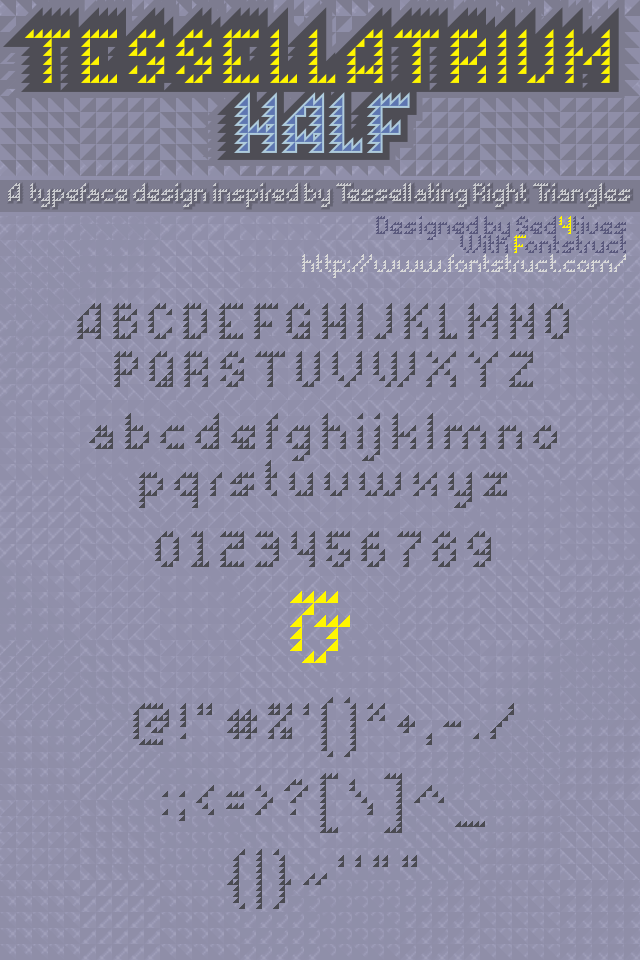
•  A sans-serif typeface design that was inspired by Tessellation. I choose to do it on a pretty small grid similar to small bitmap fonts. This had me running into a couple of small difficulties with structing some of the glyphs (a,e,s,x and #) untill I finaly was satisfied with them. This since I don't have a great deal of knowledge about small grid bitmap fonts. Also I did quite a bit of tweaking back and forth with spacing, width and kerning before it really felt ballanced to me! Overall I tried to keep it very simple from a design technical point of view.